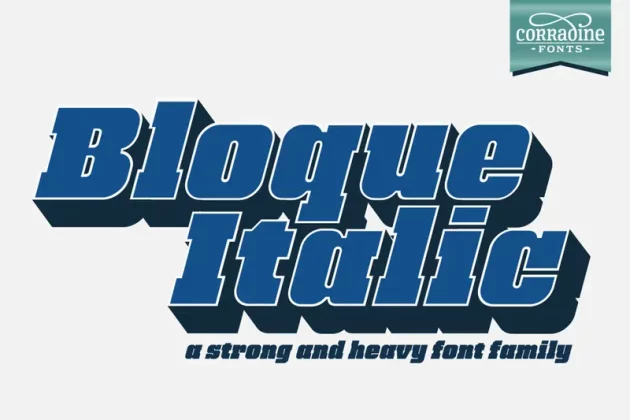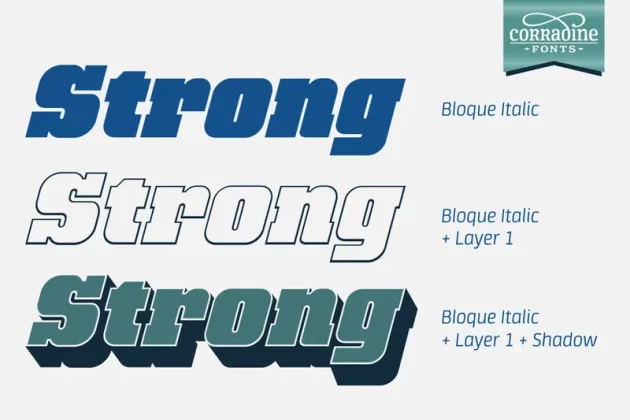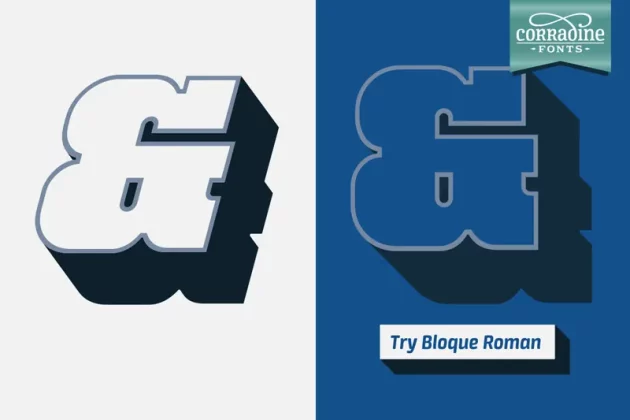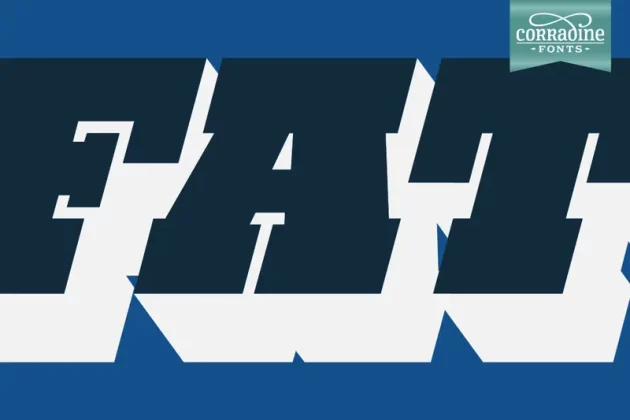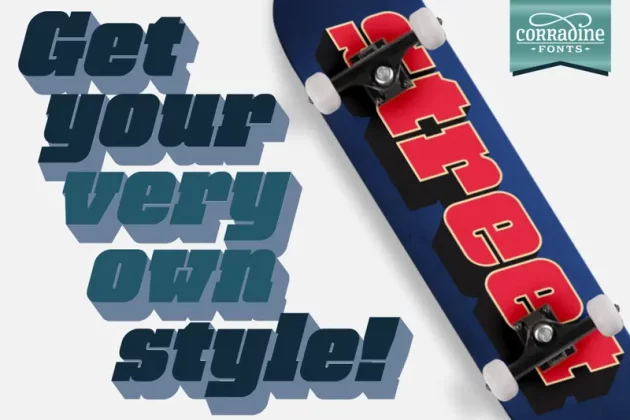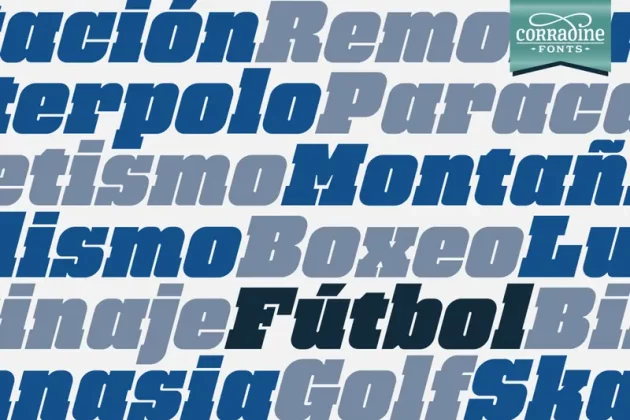
Bloque Italic Font
Bloque is a Heavy Slab font family. It has three layers including an inline and a shadow versions to make different color combinations.